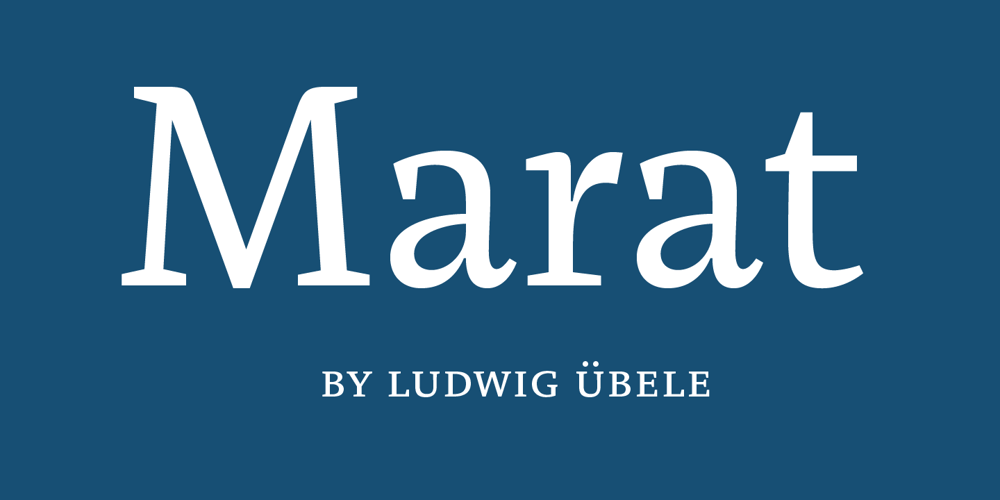
Marat
Marat font
Marat Font Family was designed by Ludwig Übele and published by Ludwig Type. Marat contains 17 styles and family package options. Although originally conceived as a magazine face – with strong serifs and open character shapes for good legibility in small sizes, and compact letter forms optimized for narrow columns and tight headlines – Marat evolved into a comprehensive family for general use. This specific construction and the round forms of the letters create an elegant, soft and friendly appearance. The typeface suits a wide range of typography, e.g. editorial, brochures, packaging and corporate design. In particular, in bold weights it works surprisingly well, which is not always the case with serif faces. Marat includes oldstyle and lining figures (both proportional and tabular), a wide range of language support and various OpenType features (e.g. ligatures, case-sensitive forms, fractions, superiors and inferiors). It is the perfect companion for Marat Sans, a clean and lively sans serif typeface. Marat has been selected by the Type Directors Club of New York to receive the Certificate of Excellence in Type Design 2008.